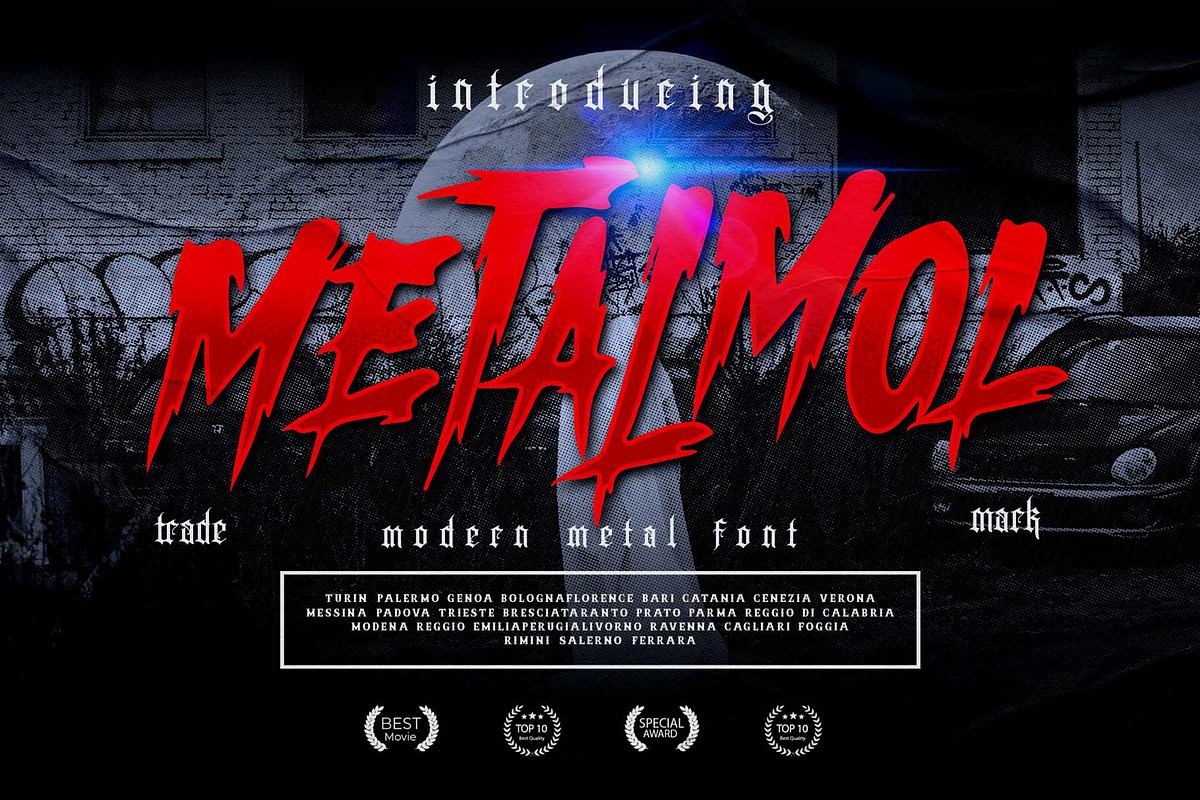
METALMOL Modern Blackletter Free Download
Metalmol Horror Metal Font Free Download is a distinctive and highly detailed blackletter typeface that embodies the edgy aesthetics of horror and metal genres. With its intricate design and bold presence, Metalmol is ideal for retro-urban designs, tattoo business branding, logos, vintage projects, and more.
Designed by Dansdesign, Metalmol offers a unique blend of traditional blackletter elements with modern horror-inspired details, making it a versatile choice for projects that aim to convey a sense of dark elegance and intensity.